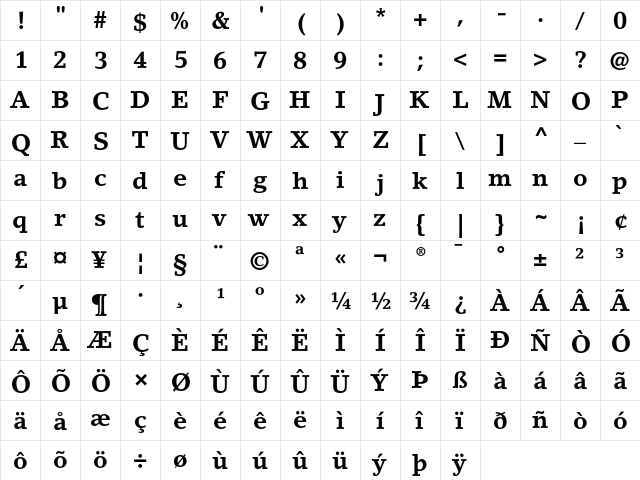
LinoLetter Bold
Design Context for LinoLetter Typeface
LinoLetter is a composed and adaptable typeface that performs quietly and consistently across a wide range of design contexts. The heavy weight commands attention and anchors typographic hierarchies.